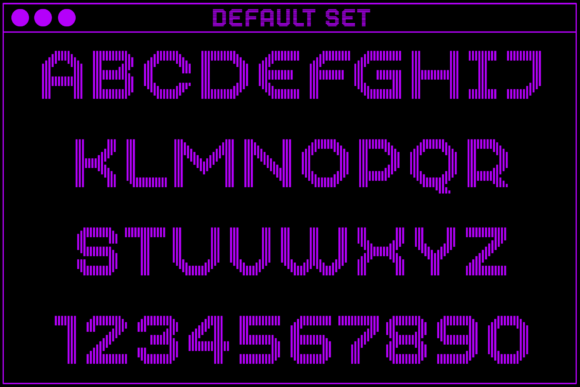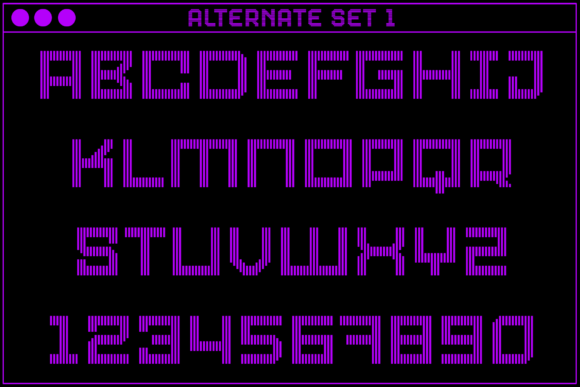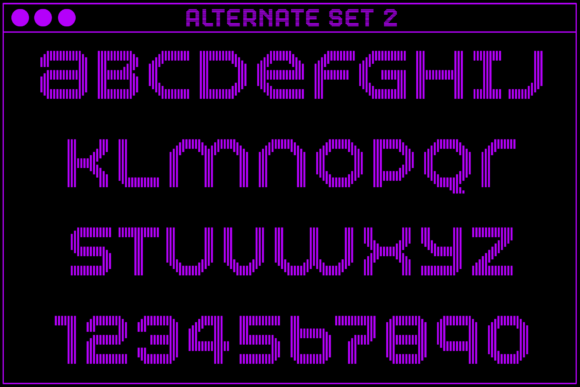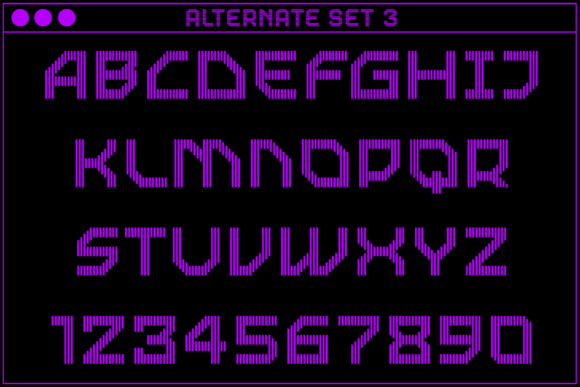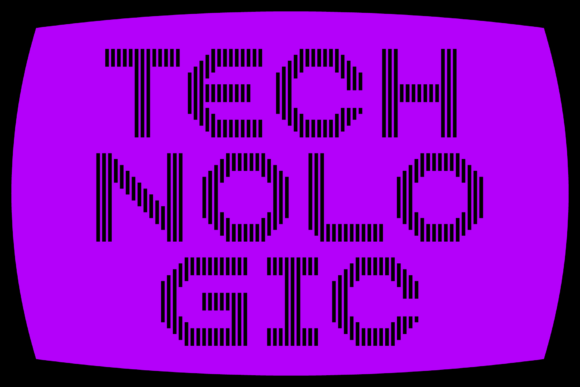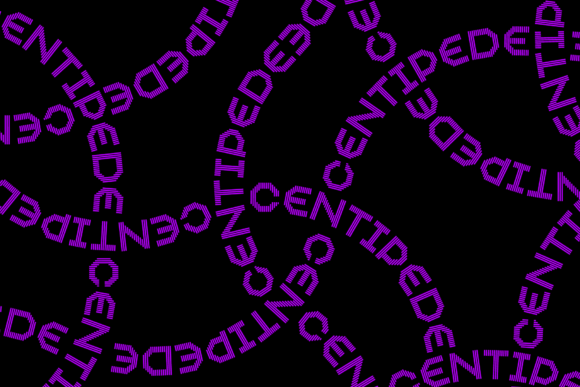
Getting Creative with MultiType Lines Wide Font
Have you ever been stuck in a design rut, searching for that one unique element to elevate your creative project? I know I have. Sometimes it’s not about finding the perfect color palette or font combination, but rather that one bold statement that sets your design apart. For me, that moment came when I stumbled upon the MultiType Lines Wide Font. Its cool, pixelated aesthetic added a distorted and trendy touch to my designs, instantly taking them to the next level.
Key Features of MultiType Lines Wide Font
- High-quality design resource with a wide range of creative possibilities for your next project
- MultiType Lines Wide Font features a transparent background, allowing for effortless layering and customization
- Designed with a unique blend of modern and classic elements, making it perfect for a variety of creative projects
- Resolution-independent design ensures crisp and clear text rendering at any size or resolution
- Perfect for use in logos, branding materials, and other design elements where a unique and eye-catching font is required
Honest Review: MultiType Lines Wide Font
I recently stumbled upon the MultiType Lines Wide Font, and I must say it’s a great addition to any designer’s toolkit. This free download is perfect for anyone looking to add a touch of elegance to their creative project.
What works well about this font is its high quality design and versatility. The font features a clean, modern aesthetic that makes it suitable for a wide range of applications, from brochures to websites. The transparent background also makes it easy to use in conjunction with other design elements.
- ✨ Versatile and easy to use
- ✨ High quality design
- ✨ Transparent background for seamless integration
However, there are a few limitations to keep in mind. The font may not be suitable for extremely small text sizes, and the character set is limited compared to some other fonts.
- ⚠️ Limited character set
- ⚠️ May not be suitable for small text sizes
Overall, I’m impressed with the MultiType Lines Wide Font. It’s a great resource for designers who want to add a touch of sophistication to their projects without breaking the bank.
Designing with MultiType Lines Wide Font
MultiType Lines Wide Font is a high-quality design resource that offers a unique and creative style for your project. To use it effectively, consider the following steps.
Tips for Getting the Most Out of MultiType Lines Wide Font
For optimal results, use MultiType Lines Wide Font in conjunction with a transparent background to create a clean and modern look. You can also experiment with different font sizes and colors to add emphasis to your text elements.
Common Use Cases for MultiType Lines Wide Font
MultiType Lines Wide Font is ideal for use in creative projects, such as graphic design, digital art, and typography. It’s also a great choice for use in presentations, social media graphics, and website design.
Alternatives to MultiType Lines Wide Font
Q: Can I customize the MultiType Lines Wide Font to fit my design needs?
Yes, you can customize the MultiType Lines Wide Font to fit your design needs. The font is highly customizable, and you can adjust its size, color, and style to suit your project requirements. Additionally, the font has a transparent background, making it easy to overlay on images or other design elements.